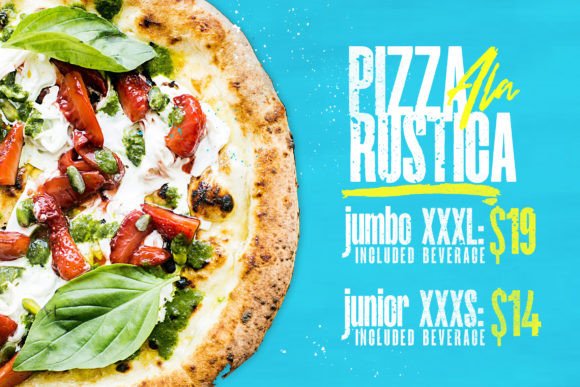
Costa La Vista
Costa La Vista: A Versatile Retro-Inspired Font Duo
Costa La Vista is a unique font duo that includes 11 fonts and styles. This versatile typeface is designed for headlines, titles, posters, books, and almost everything else. Its distinctive style features perfect condensed forms, drawing inspiration from retro and textured fonts, as well as strong geometric typefaces that leave a lasting impression.
Key Features of Costa La Vista
• Font Duo: Offers 11 fonts and styles for diverse design needs.
• Retro-Inspired: Combines vintage charm with modern design sensibilities.
• Geometric Elements: Features strong geometric shapes for a bold look.
• Script Font Included: Allows for fresh combinations and added versatility.
• Optimized Characters: Designed for optimal use in various layouts and applications.
Ideal Uses for Costa La Vista
Costa La Vista’s unique characteristics make it particularly well-suited for:
When incorporating Costa La Vista into your designs, consider these tips:
• Experiment with the different fonts and styles to create unique combinations.
• Use the condensed forms for impactful headlines and titles.
• Try pairing the geometric styles with the script font for contrast.
• Take advantage of its versatility across different media and applications.
In conclusion, Costa La Vista is an excellent choice for designers looking for a versatile and distinctive font duo. Its combination of retro inspiration and modern design makes it stand out in the world of typography. Whether you’re working on digital interfaces, creating posters, or designing book layouts, Costa La Vista offers a perfect blend of style and functionality.
Furthermore, Costa La Vista’s unique design allows it to shine in various contexts where a strong visual impact is desired. From web design to print media, this font can elevate your projects with its memorable style. Its optimized character set ensures that it performs well across different layouts and applications, making it a reliable choice for diverse design needs.
To sum up, Costa La Vista captures the essence of retro-inspired design while offering modern versatility. Its range of fonts and styles provides designers with a powerful toolkit for creating eye-catching and effective designs. For those looking to add a touch of vintage charm with contemporary usability to their work, Costa La Vista is an ideal choice. It’s perfect for designers seeking to make a bold, memorable impact across a wide range of creative projects.